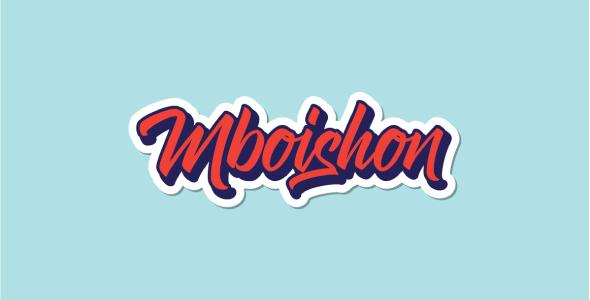
SokaQola Font
SokaQola is a modern hand brush lettered typeface. It suitable for logo, branding, t-shirt, poster, packaging, book cover and cards. SokaQola comes with upper and lowercase Standard Characters, Punctuation, Numerals. And other Glyphs variation of the OpenType features such as Standard Ligatures and Stylistic Alternates. Accessible in the Adobe Illustrator Glyphs panel, or under Stylistic Alternates in the Adobe Photoshop OpenType menu. Thank you for your purchase! and hope you’re having fun with SokaQola ! Happy creating!